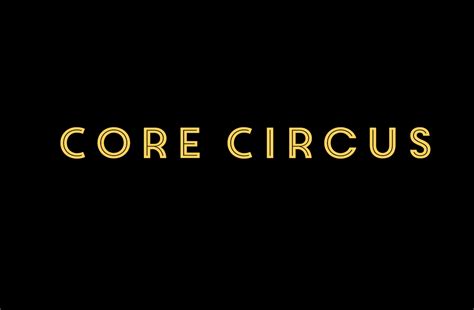
Core Circus Font. Core circus is a layered type family consisting of seven 3d effect layers, eight 2d effect layers and one shadow.
Core circus is a layered type family consisting of seven 3d effect layers, eight 2d effect layers and one shadow.
Core circus is a layered type family consisting of seven 3d effect layers, eight 2d effect layers and one shadow. Core circus is a layered type family consisting of seven 3d effect layers, eight 2d effect layers and one shadow.